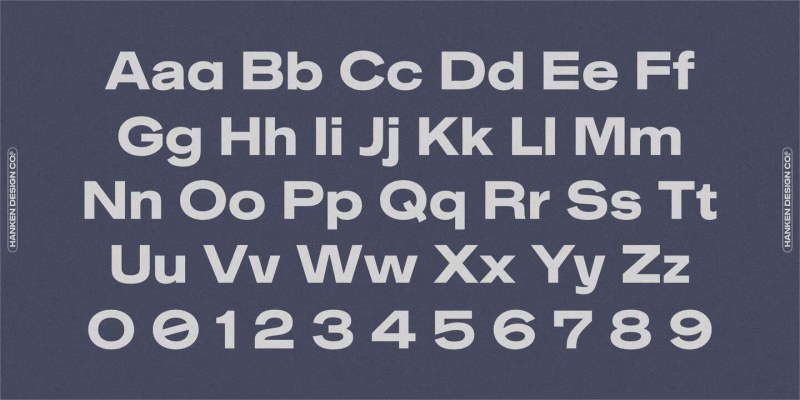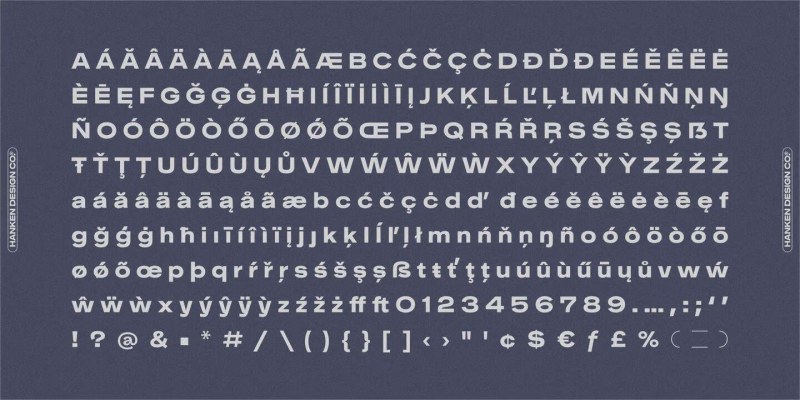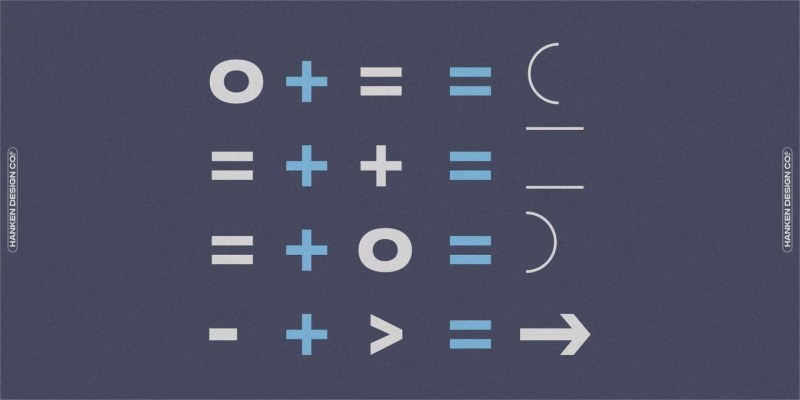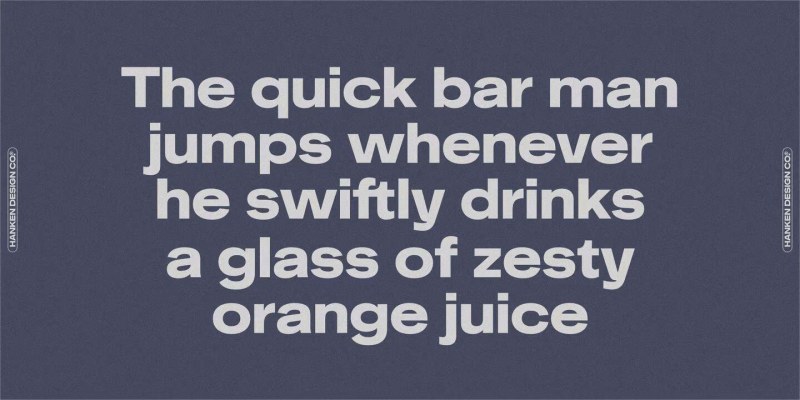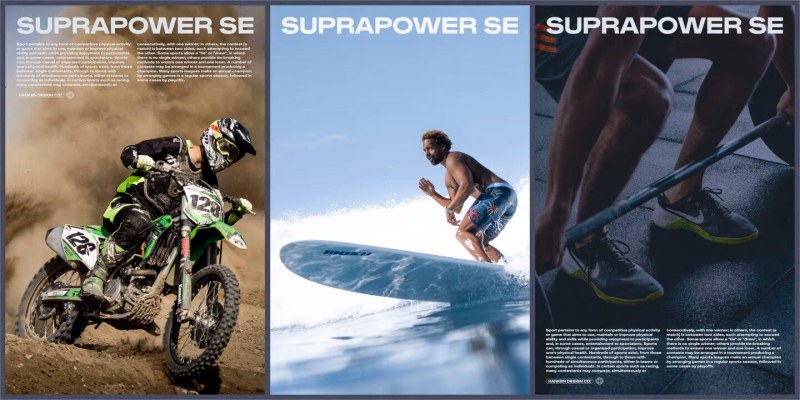
Suprapower SE Font
Suprapower™SE is an all-round typeface suitable for heading, posters, and packaging. The new version of Suprapower™ that has been launched lately is just a further devel…
Where Suprapower SE Font works best
Versatile projects
Suprapower SE Font works across print and screen, from headlines to short paragraphs.
Branding
A well-drawn typeface is often all a small business needs for a clean, professional logo.
Templates & mockups
Designers use Suprapower SE Font in Canva, Figma and Adobe templates for a polished look.
What is Suprapower SE Font good for?
Suprapower SE Font is a Typeface tagged Bold, Free, Packaging, Poster. It works well for headlines, logos, posters, social media graphics and branding projects that need a distinctive typeface look.